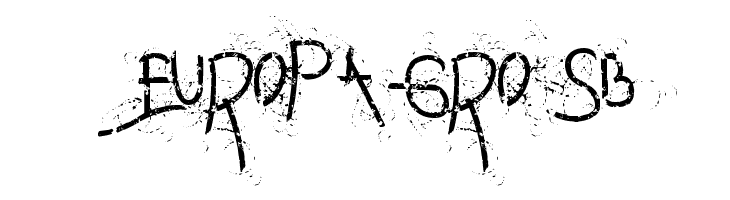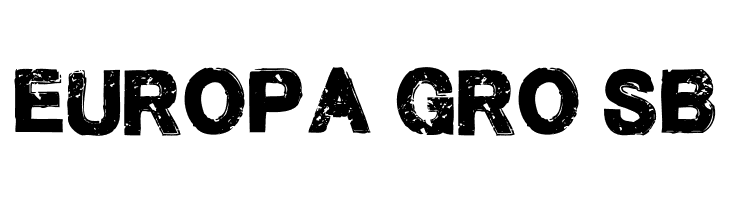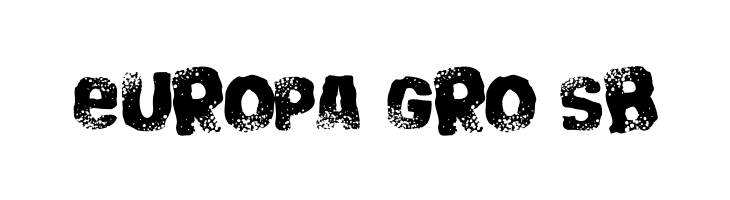
( Fonts by Chris Vile )
A bold, graffiti-inspired font with sharp, angular lines and dynamic strokes.
( Fonts by CrazeCo.com.au OFF SITE )
A bold, graffiti-inspired font with dynamic, interconnected forms.
( Fonts by Chris Vile )
A bold, graffiti-inspired font with dynamic, angular strokes and an urban feel.
A bold, distressed font with a gritty, urban aesthetic.
A bold, distressed font with a grunge texture and rugged appearance.
A bold, textured font with a rugged, distressed style.
An edgy, graffiti-inspired outline font with a raw, urban feel.